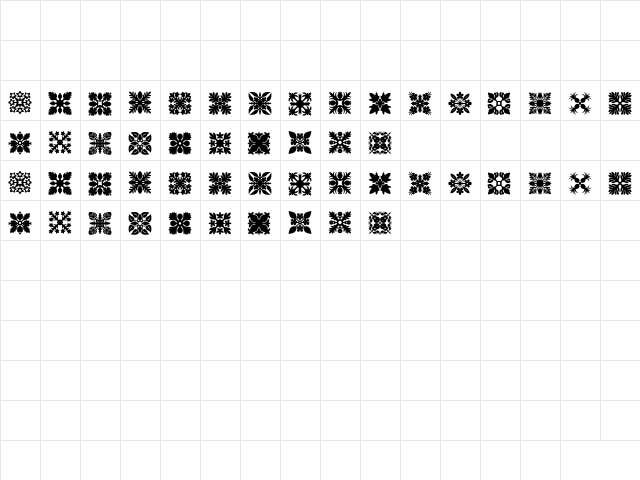
Hawaiian Quilt1 Regular Font Preview
Hawaiian Quilt1 Regular
Hawaiian Quilt1 Regular Font Details
Design Context for Hawaiian Quilt1 Typeface
Hawaiian Quilt1 is a composed and adaptable typeface that performs quietly and consistently across a wide range of design contexts.